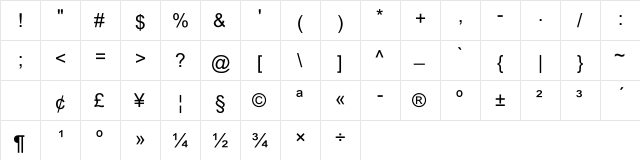
Samda Regular
| Designer | Amanat Ali Goher |
Samda is a composed and adaptable typeface that performs quietly and consistently across a wide range of design contexts.